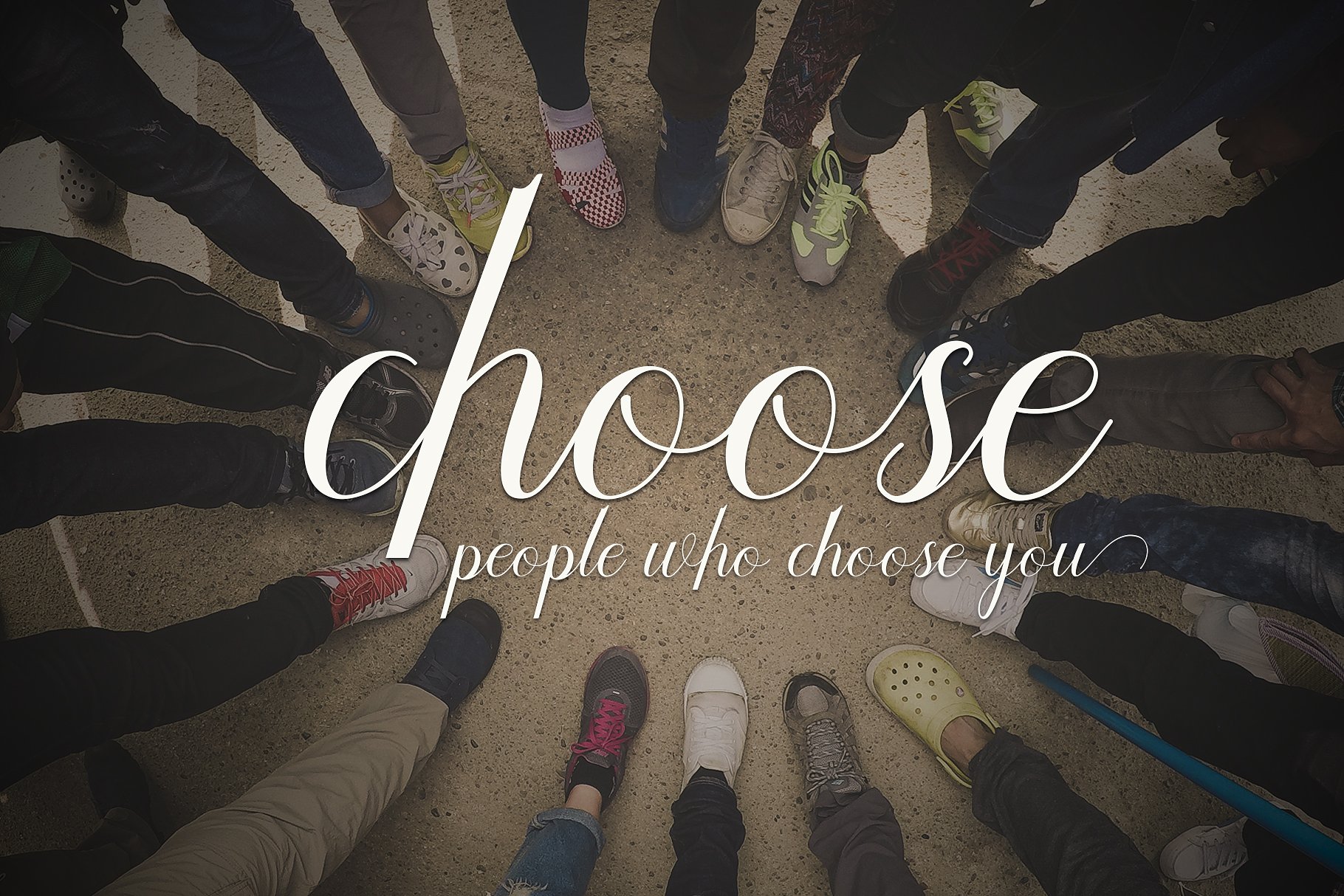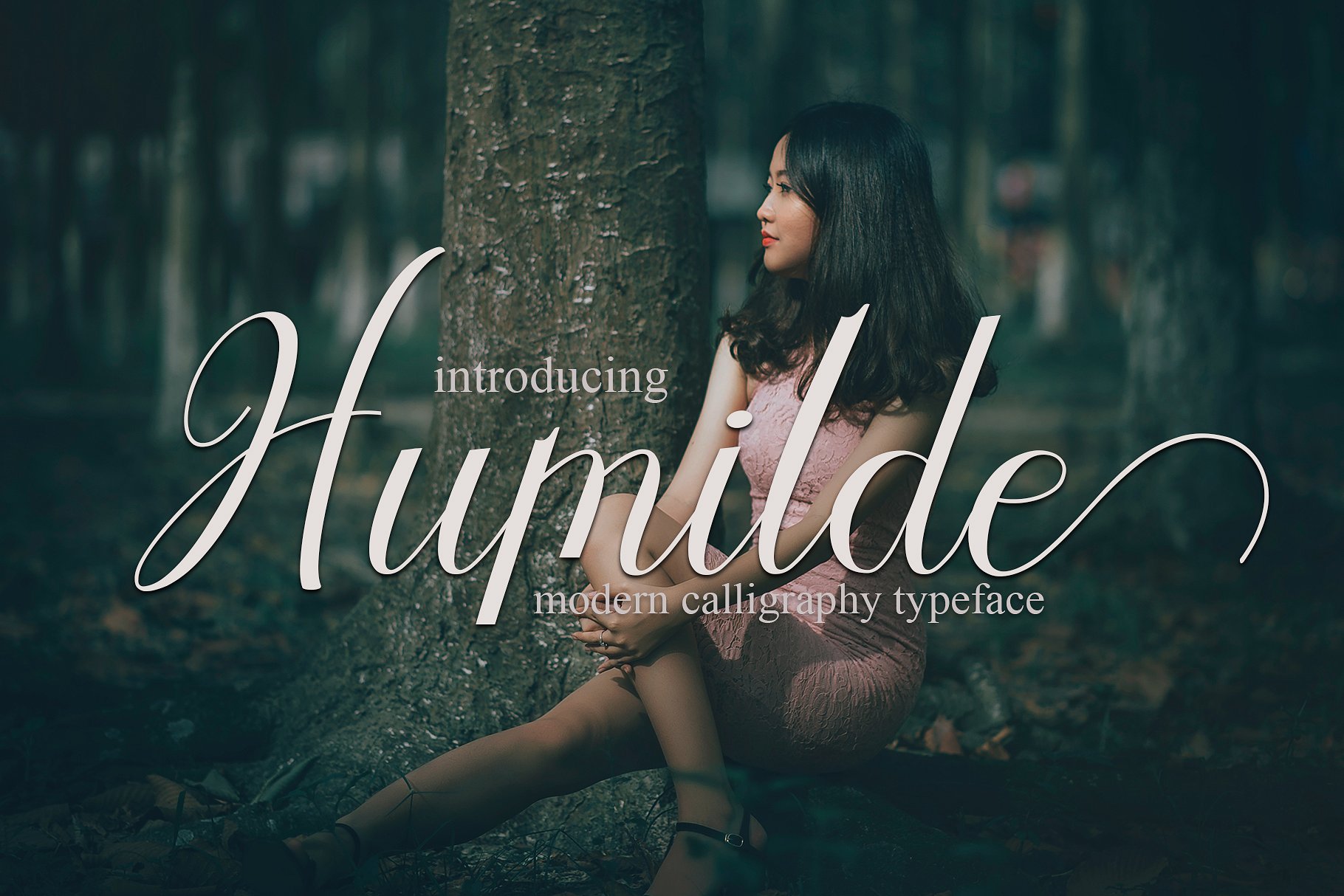
Humilde Script
Humilde Script Font
Humilde Script a new fresh & modern script with a handmade calligraphy style, decorative characters So beautiful on invitation like greeting cards, branding materials, business cards, quotes, posters, and more!!